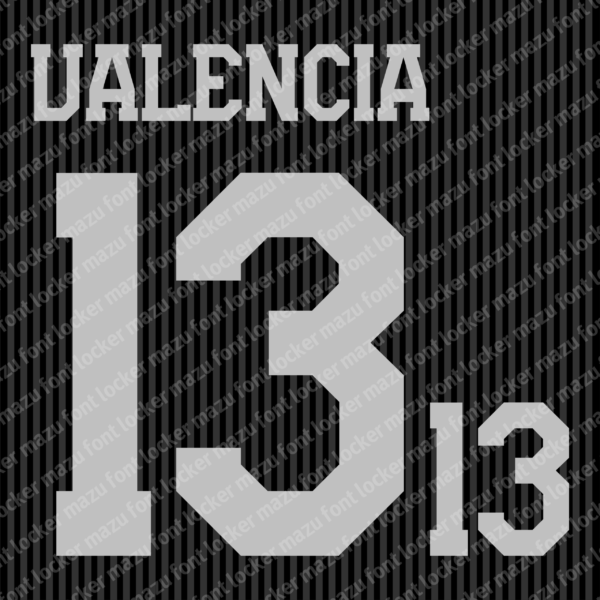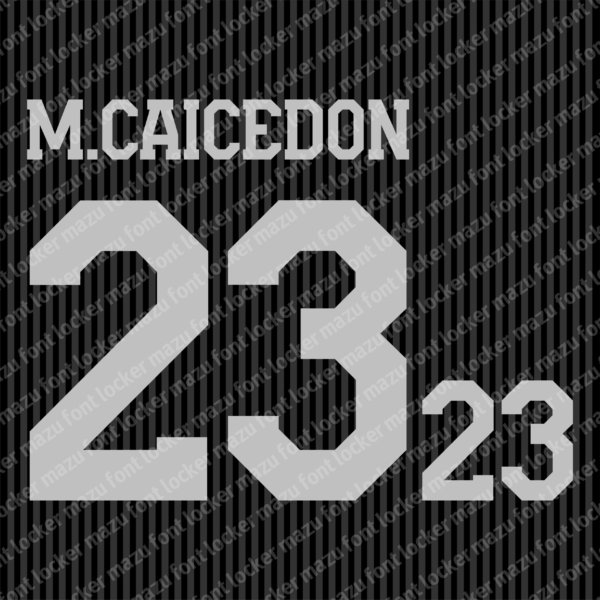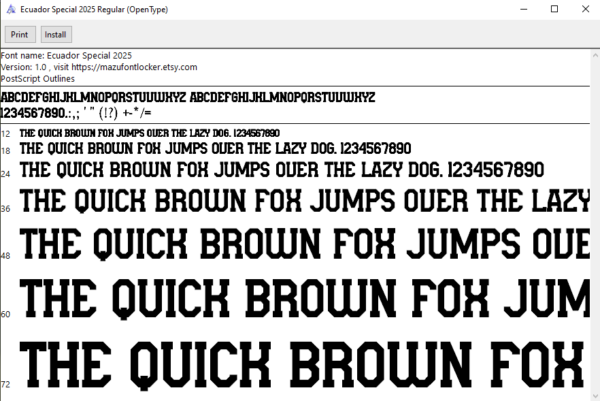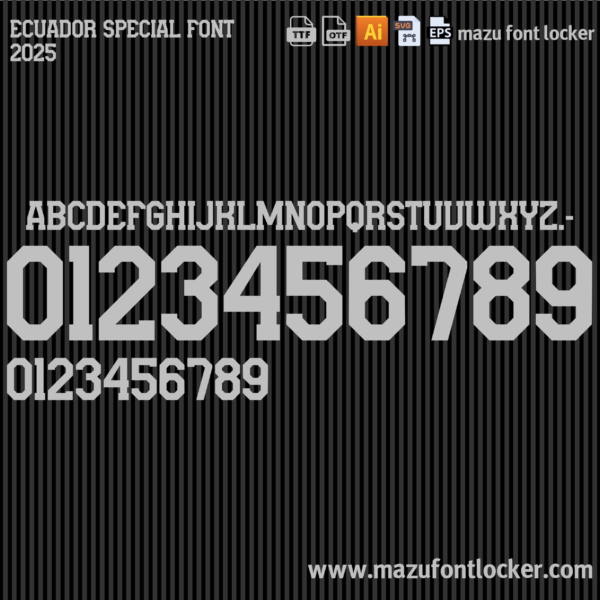
Ecuador Special 2025 Font Vector – Heroic La Tri Warriors Masterpiece
Get the official Ecuador Special 2025 jersey look with this premium vector font set. This high-quality font is meticulously crafted to replicate the authentic lettering and numbering used by Ecuador for the Special 2025 Jersey. Perfect for kit designers, fans, and professional sportswear customisation, it ensures a sharp, match-day finish for both digital and print projects.
Ecuador Special 2025 Font Vector – Authentic Jersey Lettering
Ecuador Special 2025 Font is a high-quality football jersey font vector created to replicate the official lettering and numbering style used during the iconic 2025 Season. Perfect for designers, football fans, and jersey customisation projects, this font set delivers an authentic and professional match-day appearance.
Inspired by the original Ecuador Special 2025 team kit, every letter and number has been carefully recreated to ensure accurate retro styling for both digital and print projects.
🔥 Ecuador Special 2025 Font Features
• Authentic 2025 Ecuador Specialjersey lettering style
The authentic lettering style helps recreate the classic look of the Ecuador Special 2025 kit with professional accuracy.
Unlike generic jersey fonts, this set is designed with a strong focus on authenticity and accuracy. Every detail is based on the original match lettering style used during the 2025 season, helping designers and collectors create realistic football shirt designs.
This Ecuador Special 2025 font vector set is designed for authentic football jersey customization and works perfectly for retro football projects, collector designs, and professional sportswear artwork.